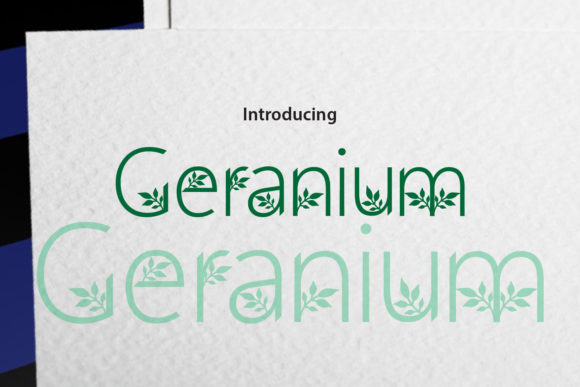
Journey into the realm of Geranium, a captivating decorative font family that exudes charm and personality. Inspired by the enchanting world of flora, Geranium brings a breath of fresh air to your digital creations, adding a touch of playfulness and organic beauty.
With its meticulously crafted characters, Geranium invites you to explore a universe of boundless creativity. Each letterform is a work of art, showcasing a harmonious blend of smooth curves and delicate flourishes. The result is a font that dances across the screen, leaving a trail of elegance and sophistication in its wake.
Whether you're a seasoned designer or just starting your creative journey, Geranium is the perfect companion for your artistic endeavors. Its versatility knows no bounds, making it a font that seamlessly adapts to a myriad of projects, from eye-catching logos and branding materials to vibrant social media graphics.
Step into the world of Geranium and let your imagination run wild. Picture your Esports logo adorned with Geranium's captivating characters, exuding an aura of professionalism and creativity that sets you apart from the competition. Or envision your social media posts bursting with personality, thanks to Geranium's playful and engaging style.
Geranium is not just a font; it's a gateway to a world of endless possibilities. A world where your designs blossom into masterpieces, attracting attention and captivating hearts. So why settle for ordinary when you can embrace the extraordinary? Embrace Geranium today and let your creativity flourish!